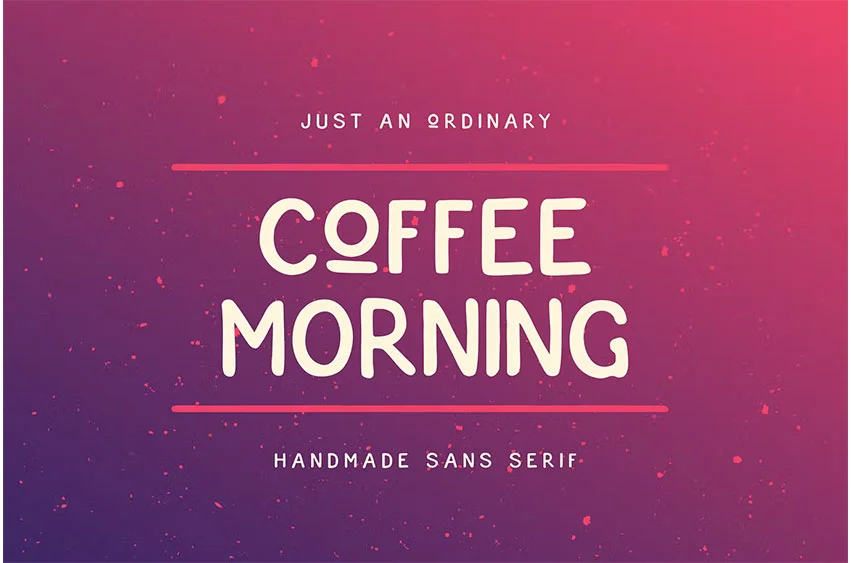
Coffee Morning Font
Coffee Morning Font is just an ordinary handmade sans serif font. But it may bespeak louder, because of its imperfectness. Rough stroke, and imperfect shapes, make this typeface has its taste, like coffee in the morning, strong and bold.